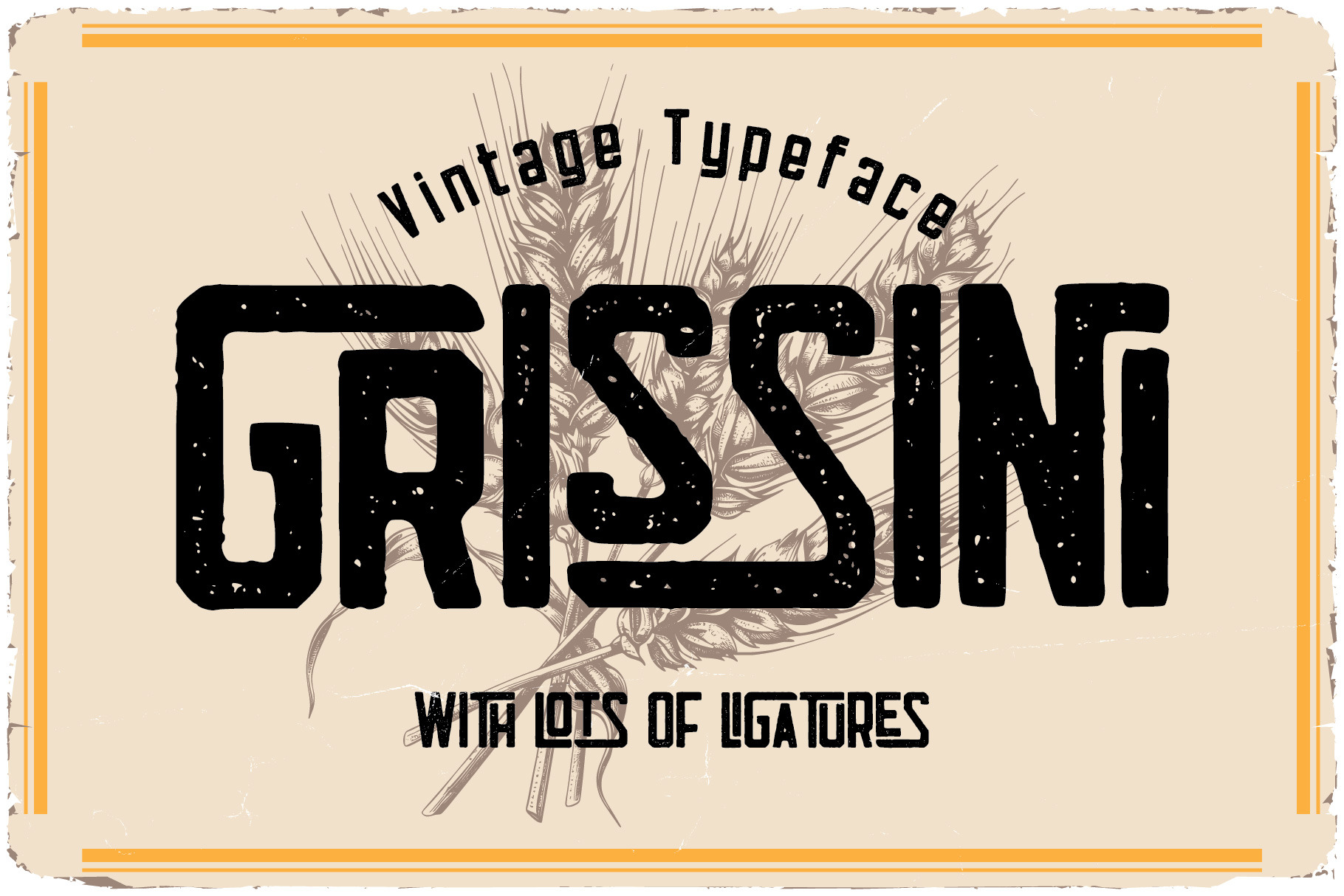
Grissini Ligature Label Font
Unique, clean, condensed, sharp, ligature, monogram & label sans serif font. Comes with multilingual support & 133 ligatures + rough font version - great for your new logo, monogram or branding project.
- 2 font versions - regular & rough
- Multilingual support & 133 ligatures
- Great for your new logo, monogram or branding project